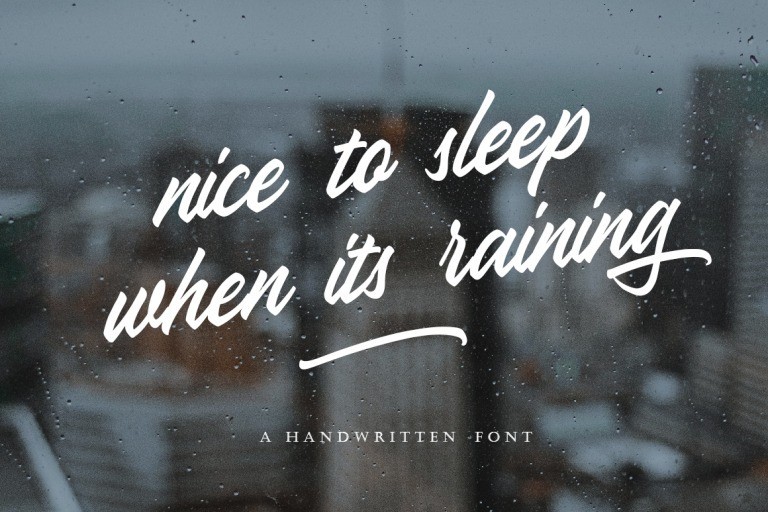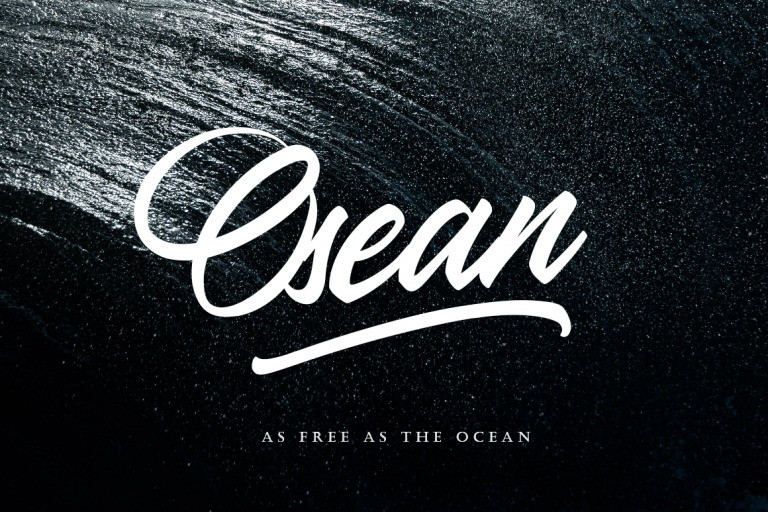
The Wave Handwritten Font
Introducing our latest products. The Wave fits all the needs of the design projects for clothing, t-shirts, branding, quotes, covers, magazine, posters,books and others.